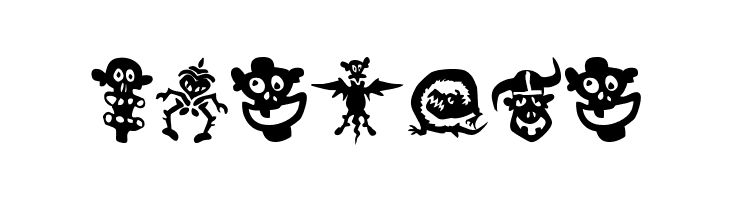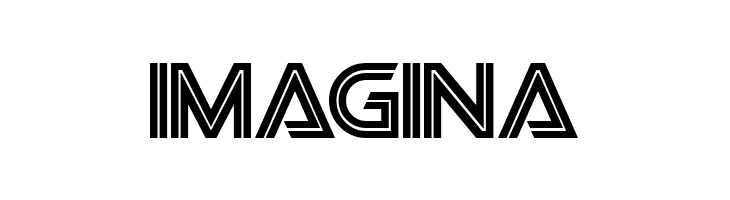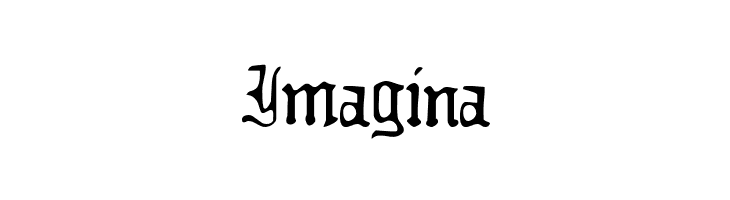
A bold, graffiti-inspired font with dynamic, freeform strokes.
A bold, geometric font with a futuristic design, featuring parallel lines and sharp angles.
A Gothic-style font with ornate, medieval-inspired characters.
A bold set of computer-themed dingbats featuring various tech icons.
A bold, gothic-inspired font with sharp, abstract shapes.
A playful font with bold, rounded letters featuring decorative bunny ears.
A Halloween-themed decorative font with playful and spooky elements.
A decorative blackletter font with intricate flourishes and bold, structured characters.
A festive, decorative font with characters inside Christmas ornaments, ideal for holiday themes.
A whimsical, decorative font with medieval and fantasy influences.
A dynamic, expressive handwritten font with fluid strokes and artistic flair.
Whimsical cartoon dingbat font with children's faces and playful icons.
A whimsical font featuring cartoon mice interacting with bold, outlined letters.